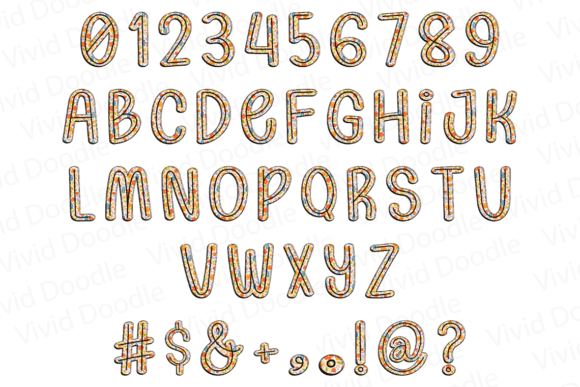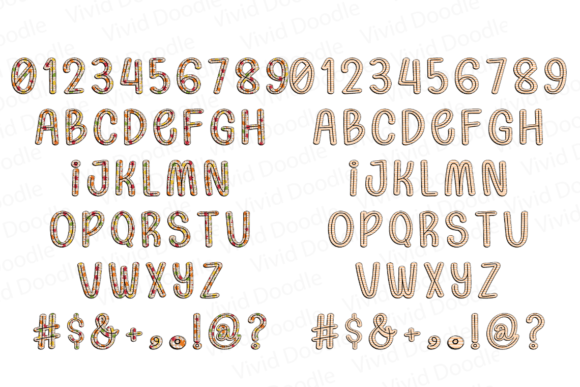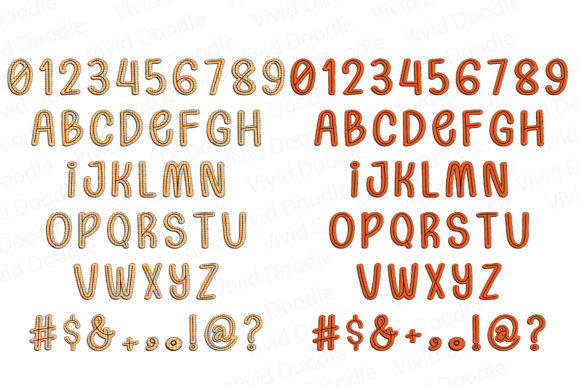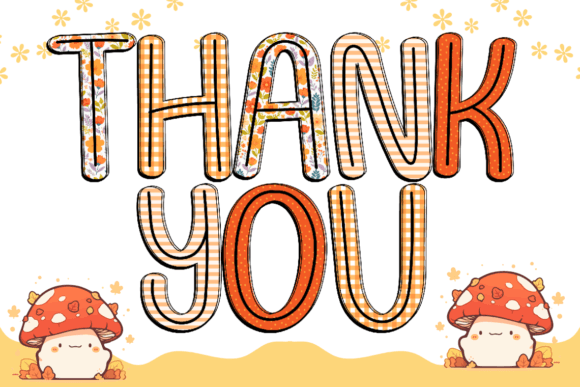
Embracing the Cozy Charm of Autumn with Boho Autumn Doodle Font
As the leaves start to change and the air grows crisp, I find myself surrounded by a sense of creative excitement. The autumn season is the perfect time to get cozy and dive into new projects that reflect the warmth and vibrancy of the season. For me, this means breaking out my favorite fonts and getting creative with designs that capture the essence of fall.
One of my go-to fonts for this time of year is the Boho Autumn Doodle font, a delightful collection of characters designed to add a touch of the season to any project. Whether you’re creating holiday cards, classroom materials, or simply want to add a seasonal flair to your social media posts, this font is sure to inspire your next creative endeavor.
As a designer, you know that having the right tools can make all the difference in bringing your vision to life. The Boho Autumn Doodle Font is a valuable addition to any designer’s toolkit, offering a unique and playful way to express the beauty of the autumn season in your work.
Key Features of Boho Autumn Doodle Font
- Unique Whimsical Design: The Boho Autumn Doodle Font features a hand-drawn, whimsical design with intricate doodles and patterns, perfect for adding a touch of bohemian charm to your designs.
- Multi-Font Style Options: The font comes in 5 different font styles, including a standard, bold, italic, bold italic, and a doodle version, allowing you to mix and match to create unique combinations.
- Customizable: The font includes a range of customization options, including color and doodle pattern variations, allowing you to tailor the font to your specific design needs.
Boho Autumn Doodle Font Review
I recently had the chance to try out the Boho Autumn Doodle Font, and I must say it’s a lovely addition to any design project. Here’s what I think:
- The font’s eclectic, whimsical feel is perfect for fall-themed designs, weddings, or any project that needs a touch of bohemian charm.
- The doodle elements add a fun, hand-drawn quality that’s hard to replicate with digital tools alone.
- The font’s size and style options make it easy to customize for various applications, from social media graphics to printed materials.
- The font’s complexity can be overwhelming for some users, especially those who are new to font design.
- The doodle elements may not be suitable for all types of projects, such as formal documents or straightforward product designs.
Overall, I think the Boho Autumn Doodle Font is a great choice for designers who want to add some personality and whimsy to their projects. With its unique style and customization options, it’s a versatile font that’s sure to impress. Just be aware of its limitations and use it thoughtfully to get the best results.
Use the Boho Autumn Doodle Font to add a touch of whimsy and personality to your designs.
Pair the font with complementary colors and textures to create a cohesive look.
Experiment with different font sizes and styles to add visual interest.
The Boho Autumn Doodle Font is perfect for:
Food and drink branding
Home decor and lifestyle design